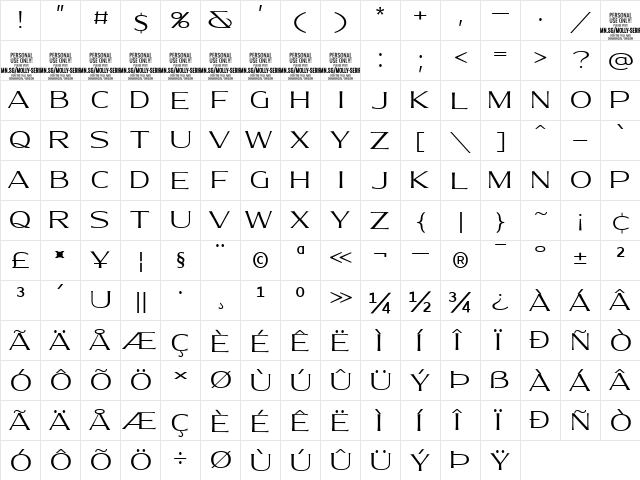
Molly Serif E PERSONAL Light
| Foundry | Mans Greback |
| Designer | Mans Greback |
Design Context for Molly Serif E PERSONAL Typeface
Molly Serif E PERSONAL carries the refined structure of traditional serif typography, with bracketed terminals and considered proportions that communicate credibility and craft. The delicate stroke weight brings airiness and refinement to layouts.